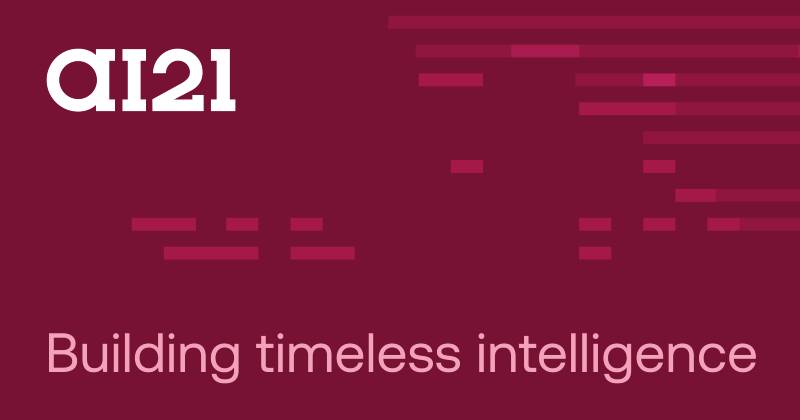
The AI21 Labs logo represents one of Israel’s most significant artificial intelligence companies. Founded in 2017 by Yoav Shoham, Ori Goshen, and Amnon Shashua, the company needed visual branding that could stand alongside established tech company logos while communicating its focus on natural language processing.
The current AI21 Labs logo features a clean wordmark design. It uses modern typography paired with a distinctive visual element.
This logo has remained relatively consistent since the company’s founding, with minor refinements to match evolving brand needs. The design reflects the company’s position as a serious player in generative AI and large language model development.
What Is the AI21 Labs Logo?
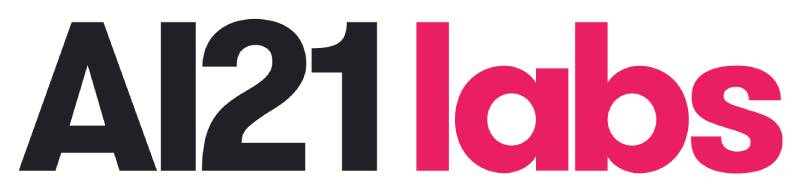
The AI21 Labs logo is a combination mark featuring the company name “AI21” with a stylized design element. Officially introduced around 2017 when the company launched, it uses clean geometric forms and a modern sans-serif font to communicate technological sophistication and innovation in the AI space.
Extended Details:
- Design Type: Combination mark (wordmark with symbol)
- Primary Elements: “AI21” text with geometric accent, “Labs” descriptor
- Official Introduction: 2017 (company founding)
- Designer/Agency: Not publicly disclosed
- Color Palette: Deep pink as primary color, with white and dark variations for different applications
- Usage Context: AI21 Studio platform, Wordtune product, Jurassic model documentation, corporate communications, developer APIs
How Has the AI21 Labs Logo Evolved Over Time?
The AI21 Labs logo has maintained a consistent core identity since 2017.
Unlike many tech startups that undergo dramatic rebrands, AI21 Labs kept its visual identity stable.
Minor refinements have occurred to optimize the logo for digital platforms and various screen sizes.
Original AI21 Labs Logo (2017-Present)
- Years Active: 2017 to present
- Design Description: Clean wordmark with “AI21” as the primary text element, followed by “Labs” in a lighter weight or separate positioning
- Color Scheme: Deep pink primary, white secondary for reversed applications
- Designer: Not publicly credited
- Context: Introduced at company founding to establish credibility in the competitive AI research space
- Key Changes: The logo has seen subtle updates for digital optimization, but no major redesigns
- Cultural Significance: Represents the Israeli AI startup ecosystem and the company’s focus on making large language models accessible
What Do the Design Elements of the AI21 Labs Logo Mean?
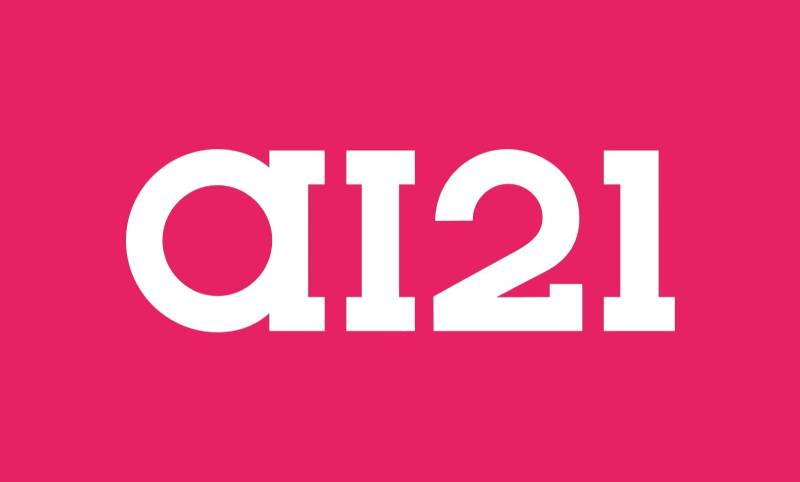
The AI21 Labs logo communicates technological precision through its geometric forms.
The “21” in the name refers to the 21st century, suggesting forward-thinking innovation.
Combined with “AI,” it positions the company at the intersection of artificial intelligence and modern advancement.
Why Did AI21 Labs Choose These Specific Colors?
The deep pink in the AI21 Labs logo creates energy and signals creativity. Pink is an increasingly popular choice in tech branding for its associations with boldness and modernity.
Understanding color psychology helps explain why AI companies choose distinctive colors to stand out from the crowd.
It creates a sense of confident individuality, which matters when your product involves complex machine learning systems that need to feel accessible.
- Primary Pink: Symbolizes creativity, boldness, and human connection
- White: Represents clarity, simplicity, and clean interfaces
- Dark variations: Used for applications requiring stronger contrast and professional contexts
What Typography Style Is Used in the AI21 Labs Logo?
AI21 Labs uses a clean sans-serif typeface in its logo.
The letterforms are geometric and modern, prioritizing readability at small sizes.
This choice supports the brand’s positioning as a technical but accessible AI company.
The typography balances professionalism with approachability, avoiding the cold, sterile feeling some tech logos have.
What Are the Hidden Meanings in the AI21 Labs Logo?
The “21” creates a subtle connection to forward progress and the current century.
Some see the numbers as representing a partnership or duality, fitting for human-AI collaboration.
The geometric precision in the design mirrors the mathematical foundations of machine learning.
Whether intentional or not, the clean forms suggest the clarity AI21 aims to bring to language understanding.
How Does the AI21 Labs Logo Compare to Competitor Logos?
AI21 Labs operates in a space crowded with distinctive visual identities.
Compared to the Anthropic logo or the Cohere logo, AI21’s mark takes a more traditional approach.
It lacks the abstract symbolism of some competitors but gains clarity and instant recognition.
Comparative Analysis:
For a Tel Aviv-based AI company competing with OpenAI and Google, that kind of minimalist design clarity matters.